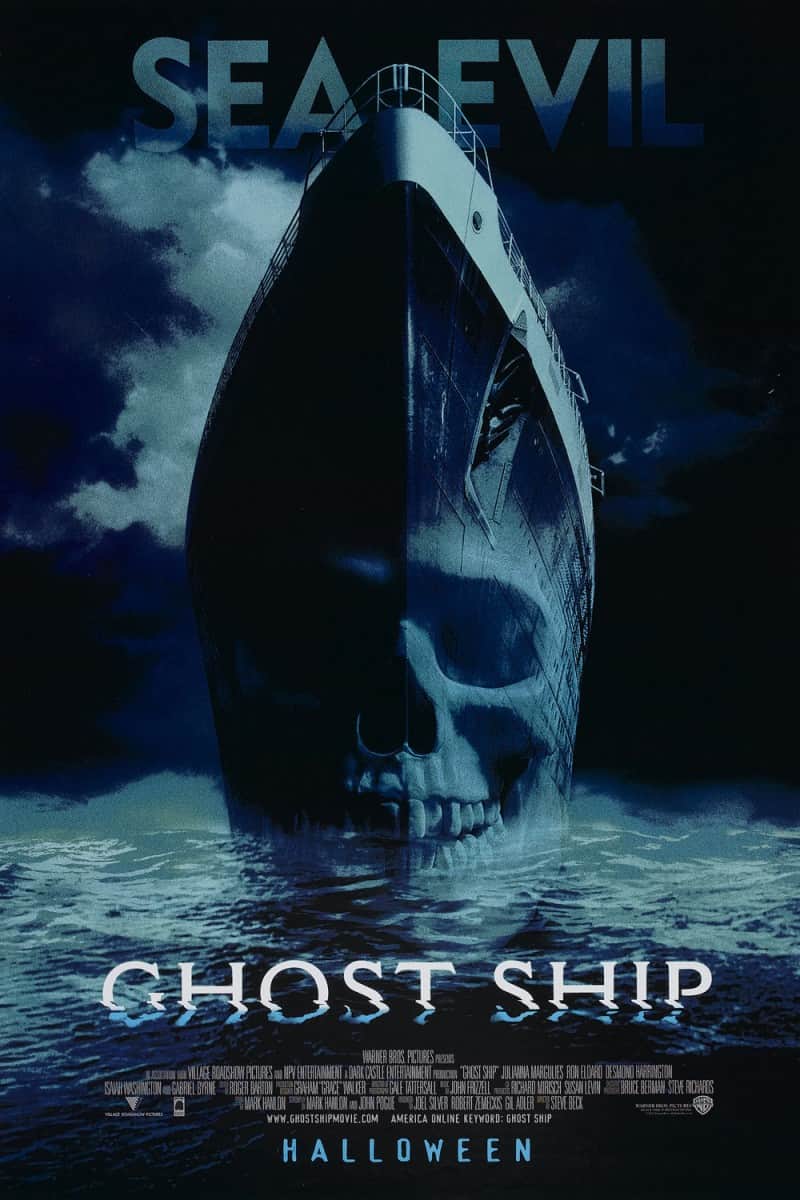
Ghost Ship Font
Fonts in UseGhost Ship is a 2002 horror film about a salvage crew that discovers a mysterious, abandoned ship in the Bering Sea. As they attempt to tow it back to shore, they soon realize that the ship is haunted by vengeful ghosts seeking revenge for a tragic event that occurred onboard.
The movie's title on the poster appears to have been created with Cantoria bold, a serif font created by Ron Carpenter. The script font used for the film's title and credits is House Casual, which can be purchased from House Industries as part of their Sign Painter font collection.